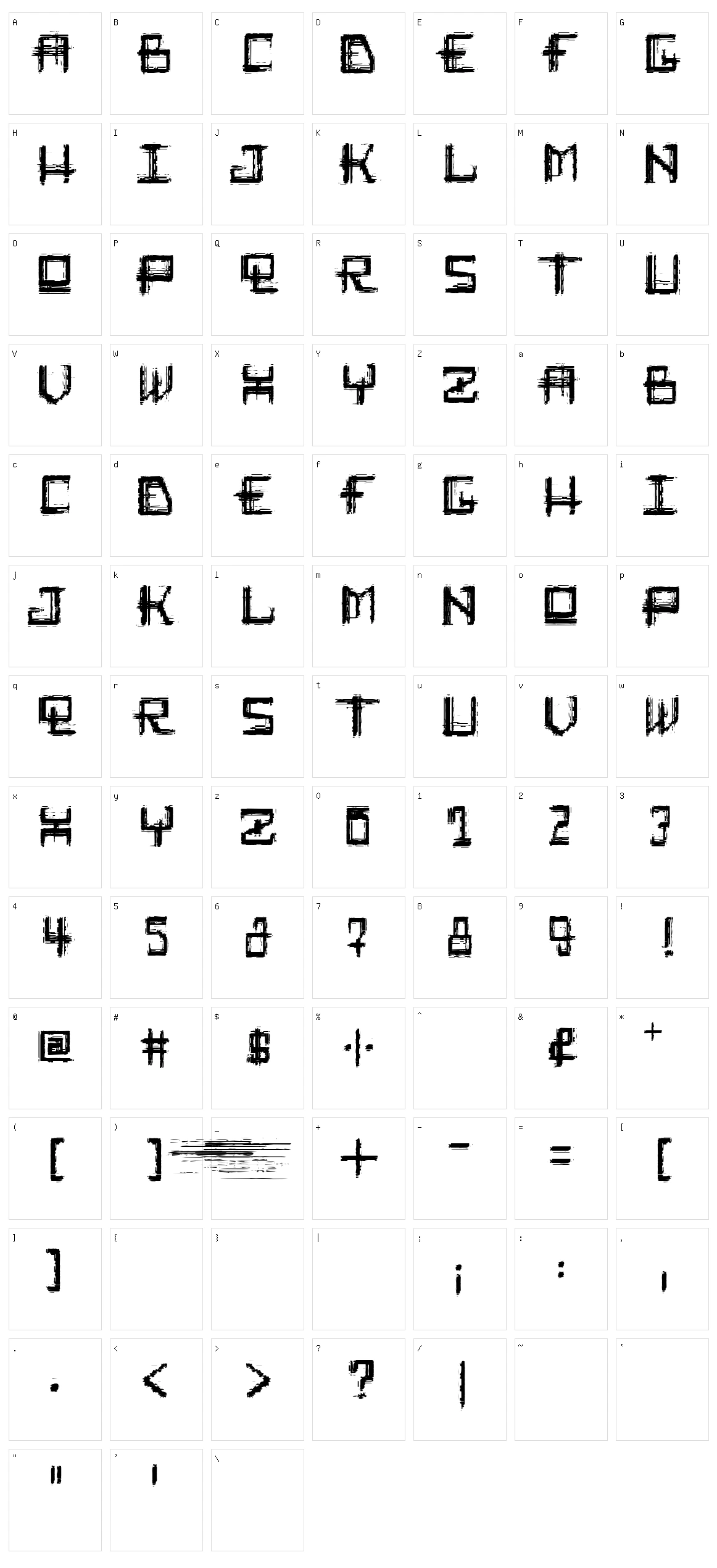
The free font Rabid Science is carefully designed by jge.2e, showcasing a thoughtful balance of creativity and usability and falls under the Destroy font style. When you download the ZIP file, it contains only 197.39 KB of font files, making it lightweight and quick to download. Please review the license details below to understand permitted usage and distribution rights. If license information is not available, we recommend using this font for personal projects only or contacting the author directly for commercial usage permissions.